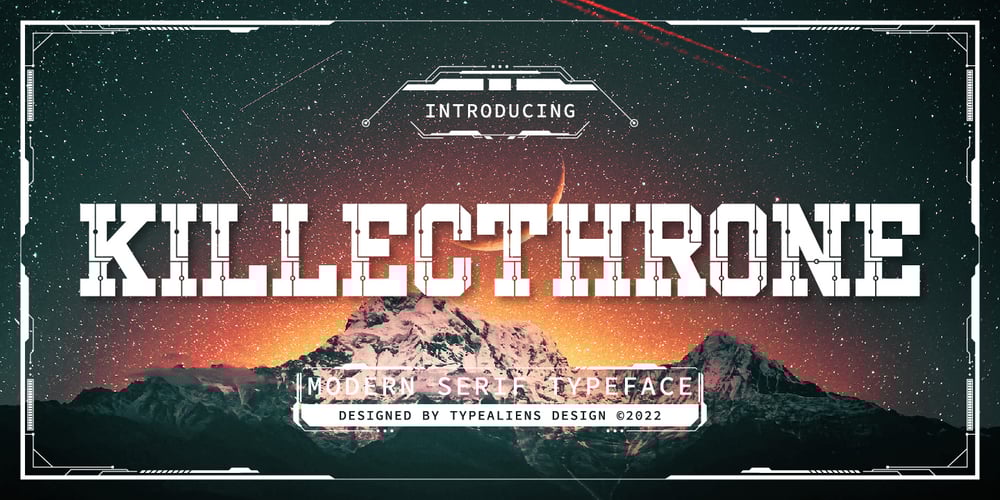
Killecthrone Font Family was designed by Ilham Wahyu and published by Ilhamtaro. Killecthrone contains 1 styles and family package options. KILLECTHRONE is a font based on the classic college style font. Then modified by adding a PCB pattern to produce a modern and futuristic font.To enable the OpenType Stylistic alternates, you need a program that supports OpenType features such as Adobe Illustrator CS, Adobe Indesign & CorelDraw X6-X7.Cheers!